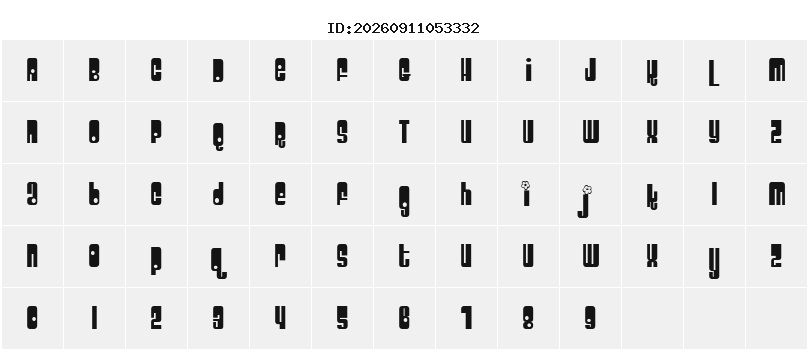
• Font Name: Velcro
• Full Font Name: Velcro
About Velcro.ttf
Velcro.ttf is a modern, elegant sans-serif font designed for ultimate readability and visual harmony. Perfect for branding, headlines, web design, and print materials.